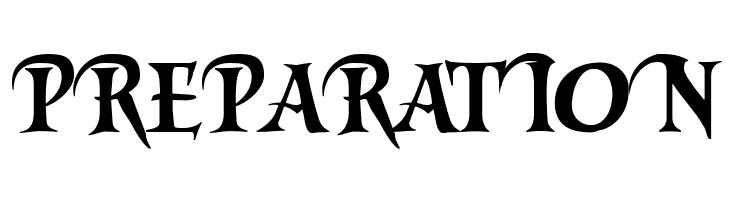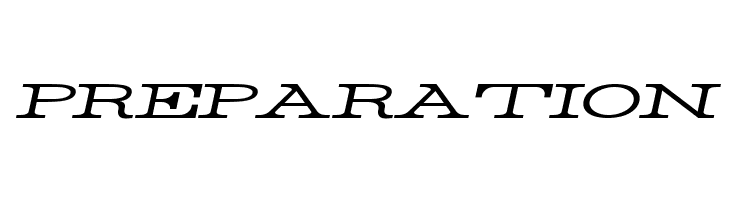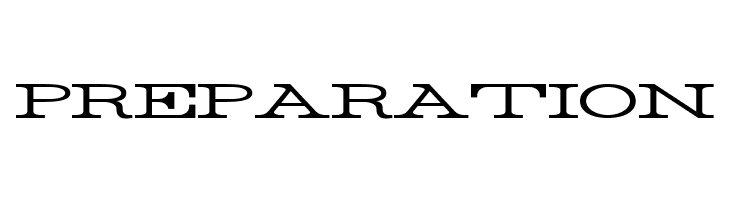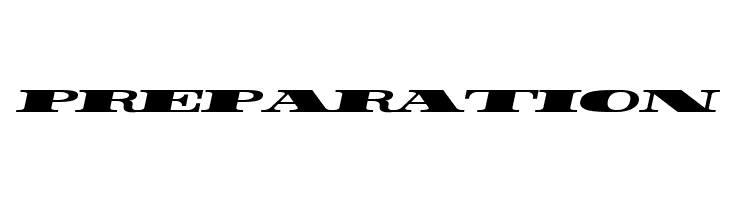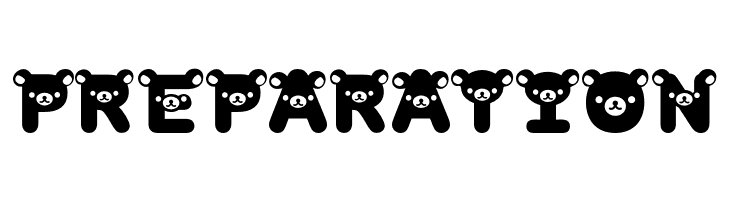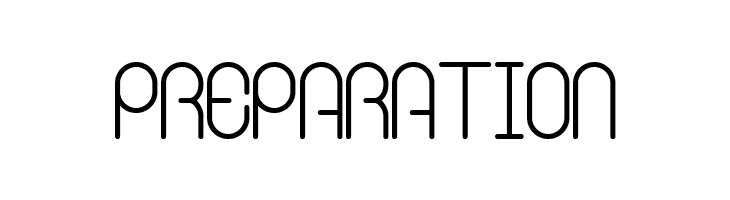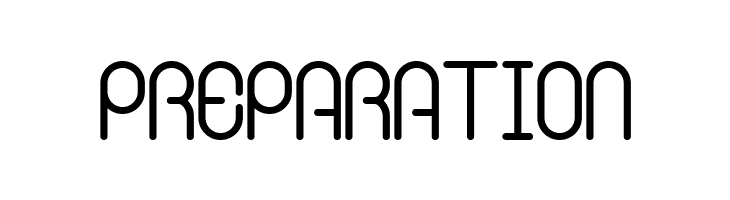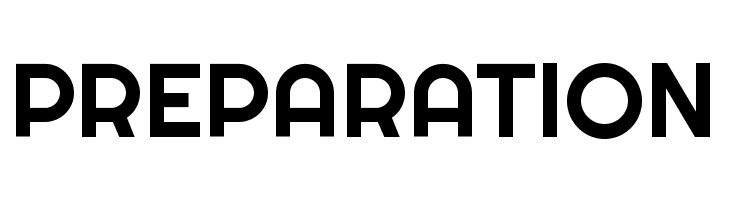
( Fonts by Mans Greback - www.mawns.com ) A bold, ultra-expanded italic font with a powerful and dynamic presence. Download 161 Downloads@WebFont
( Fonts by Mans Greback - www.mawns.com ) An ultra-expanded, light serif font with a modern and bold aesthetic. Download 183 Downloads@WebFont
( Fonts by Mans Greback - www.mawns.com ) An ultra-expanded, light, and italicized font with a grand and dynamic style. Download 87 Downloads@WebFont
( Copyright (c) 2011 by Brian J. Bonislawsky DBA Astigmatic (AOETI) ) A bold, geometric sans-serif font with a modern and clean design. Download 14509 Downloads@WebFont
( Copyright (c) 2011 by Brian J. Bonislawsky DBA Astigmatic (AOETI) ) A modern, geometric font with rounded edges and uniform stroke width. Download 11703 Downloads@WebFont
( Fonts by Riky Vampdator - Personal-use only. For commercial use please contact owner. ) A bold, gothic-style font with sharp, angular edges and dramatic flair. Download 433 Downloads@WebFont
( Fonts by Mans Greback - www.mawns.com ) A modern, geometric font with rounded edges and consistent line thickness. Download 325 Downloads@WebFont
( Fonts by Mans Greback - www.mawns.com ) A modern, geometric font with rounded edges and a bold, minimalist style. Download 474 Downloads@WebFont